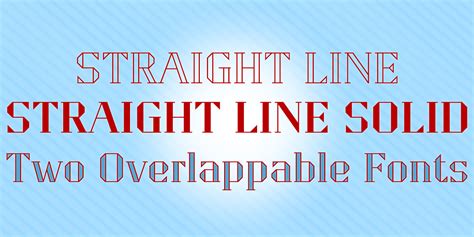
Font Straight Lines
Font Straight Lines - When the space available is small, strait becomes very useful. Web looking for straight fonts? Every font is free to download! Click to find the best 62 free fonts in the straight style. ← back to family page. A great quality condensed typeface. Click to find the best 13 free fonts in the straight lines style. Straight line is essentially an outline modern, but drawn without any curves. Web looking for straight lines fonts?
Web revamp your designs with our free line fonts! Straight line is essentially an outline modern, but drawn without any curves. When the space available is small, strait becomes very useful. Perfect for creating sleek, modern aesthetics in all your digital projects. Web looking for straight lines fonts? ← back to family page. A great quality condensed typeface. Click to find the best 13 free fonts in the straight lines style. Every font is free to download! Every font is free to download!
Perfect for creating sleek, modern aesthetics in all your digital projects. Every font is free to download! ← back to family page. Click to find the best 62 free fonts in the straight style. Every font is free to download! Click to find the best 13 free fonts in the straight lines style. When the space available is small, strait becomes very useful. Web revamp your designs with our free line fonts! Web looking for straight fonts? A great quality condensed typeface.
When the space available is small, strait becomes very useful. Click to find the best 62 free fonts in the straight style. A great quality condensed typeface. Every font is free to download! Web looking for straight fonts?
Straight Lines Font Upper case alphabets numerals and punctuation
Every font is free to download! Web looking for straight lines fonts? Click to find the best 62 free fonts in the straight style. A great quality condensed typeface. When the space available is small, strait becomes very useful.
Web about straight line font family. Straight line is essentially an outline modern, but drawn without any curves. A great quality condensed typeface. ← back to family page. Web looking for straight fonts?
Web looking for straight lines fonts? Click to find the best 13 free fonts in the straight lines style. Perfect for creating sleek, modern aesthetics in all your digital projects. Web about straight line font family. Every font is free to download!
A great quality condensed typeface. Every font is free to download! Web looking for straight fonts? Click to find the best 62 free fonts in the straight style. Straight line is essentially an outline modern, but drawn without any curves.
← back to family page. Straight line is essentially an outline modern, but drawn without any curves. When the space available is small, strait becomes very useful. Click to find the best 62 free fonts in the straight style. Click to find the best 13 free fonts in the straight lines style.
Web about straight line font family. Click to find the best 62 free fonts in the straight style. A great quality condensed typeface. Web looking for straight fonts? Click to find the best 13 free fonts in the straight lines style.
Straight Line Font Fontspring
Web looking for straight lines fonts? Click to find the best 62 free fonts in the straight style. Every font is free to download! ← back to family page. Web looking for straight fonts?
Straight Line Font Fontspring
Web looking for straight lines fonts? ← back to family page. Straight line is essentially an outline modern, but drawn without any curves. Every font is free to download! Web looking for straight fonts?
Straight Line Is Essentially An Outline Modern, But Drawn Without Any Curves.
Every font is free to download! A great quality condensed typeface. When the space available is small, strait becomes very useful. Click to find the best 13 free fonts in the straight lines style.
Web Looking For Straight Lines Fonts?
Web looking for straight fonts? Web revamp your designs with our free line fonts! Perfect for creating sleek, modern aesthetics in all your digital projects. Click to find the best 62 free fonts in the straight style.
Web About Straight Line Font Family.